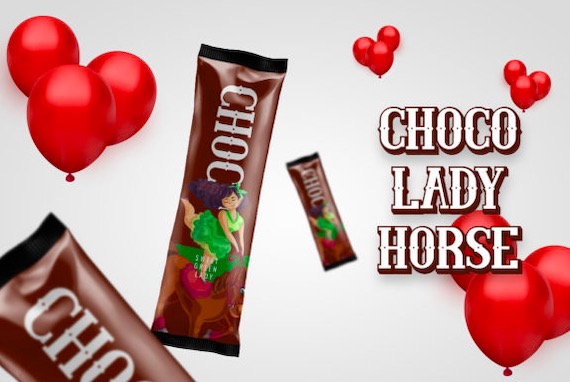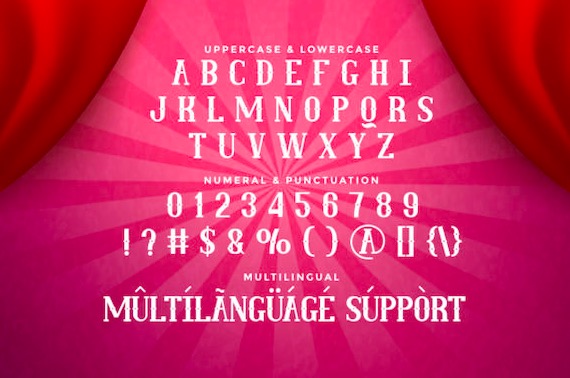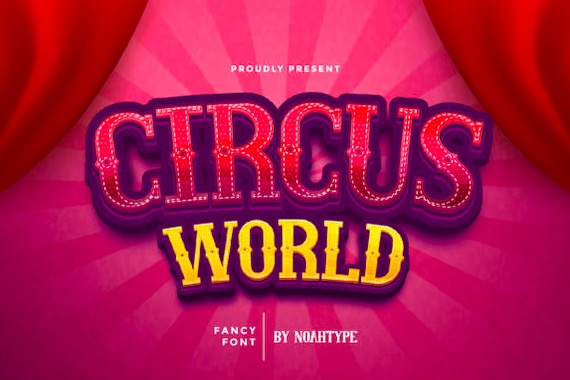
Circus World is a fancy and unique display font that was created and shared by NoahType along with a gorgeous Western feel. This refined font is inspired by the magical world of the circus, and this Circus World Font will bring a special effect to any design. It will work for the circus, comedy shows, branding, logos, and many more wonderful things!
Circus World Display Font